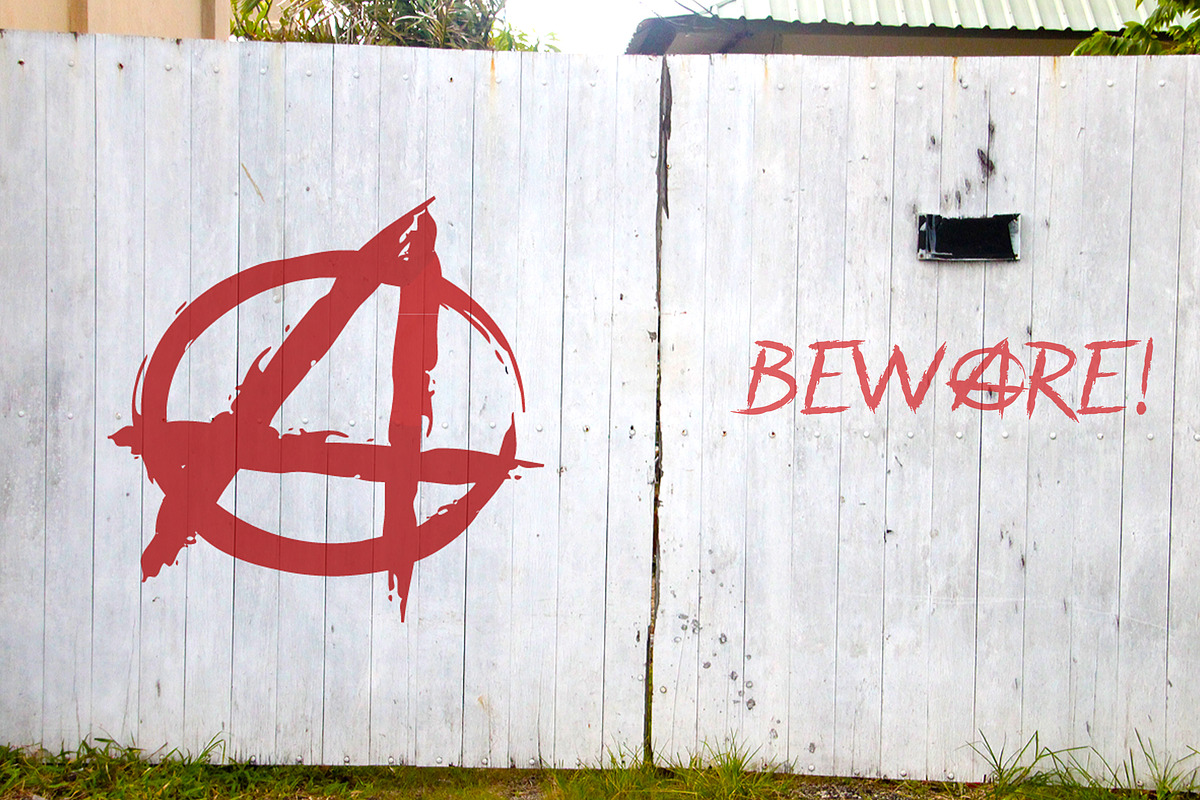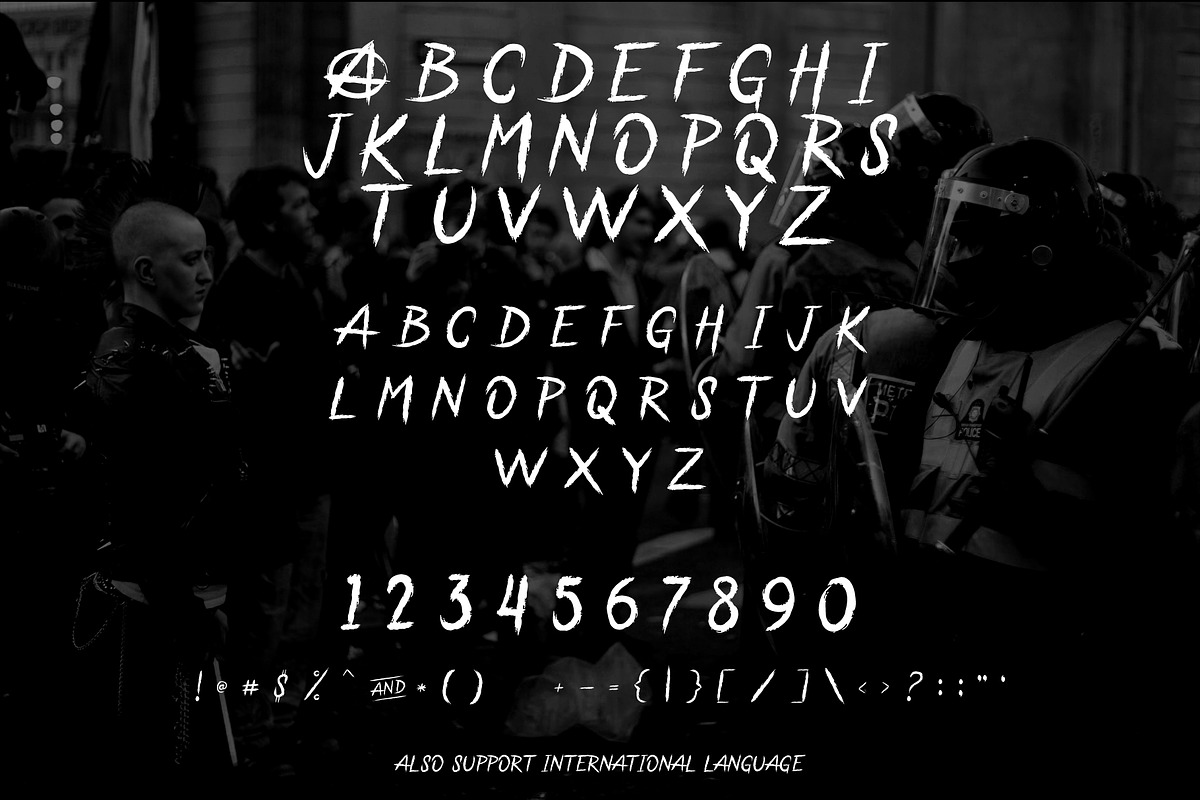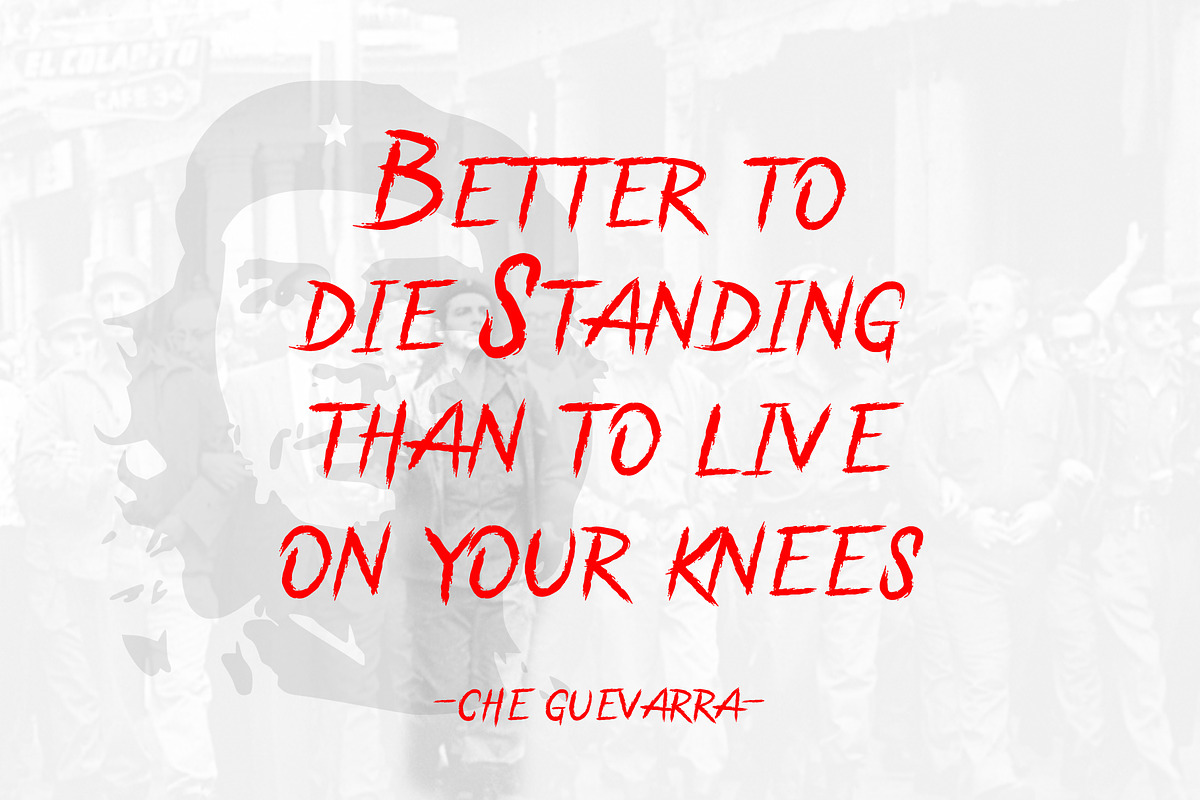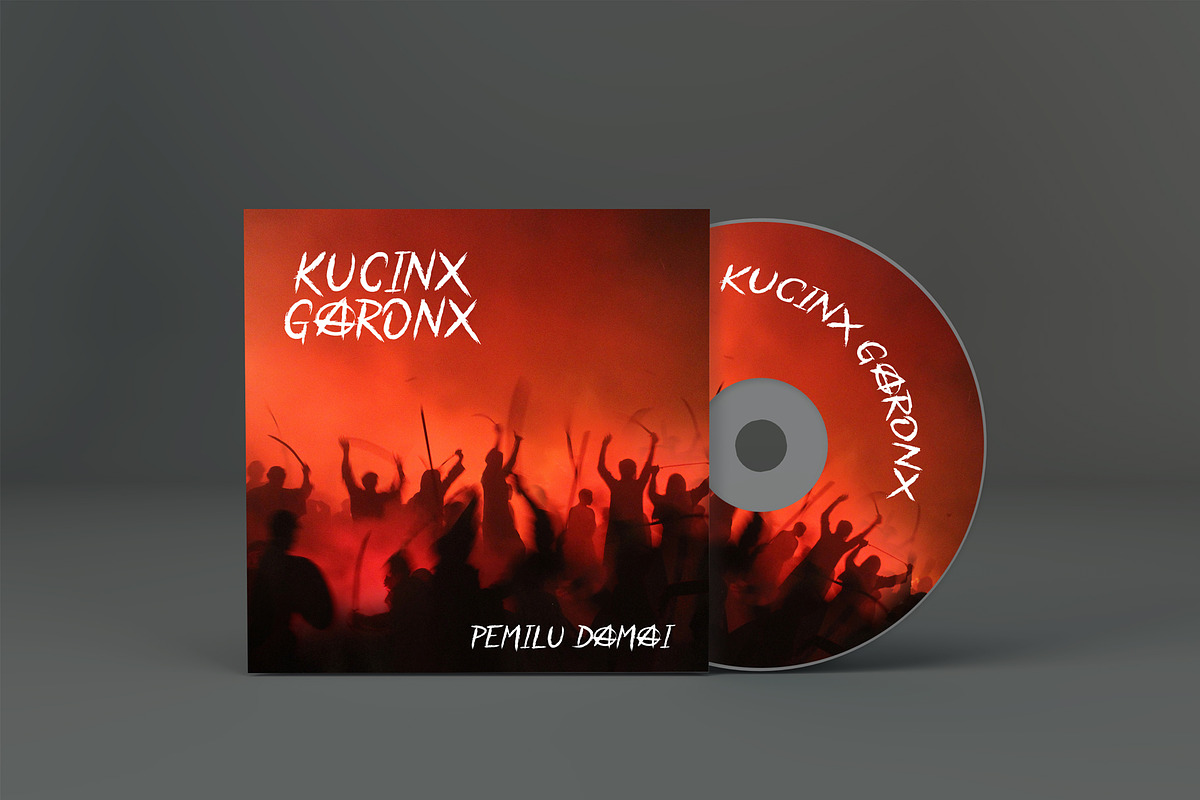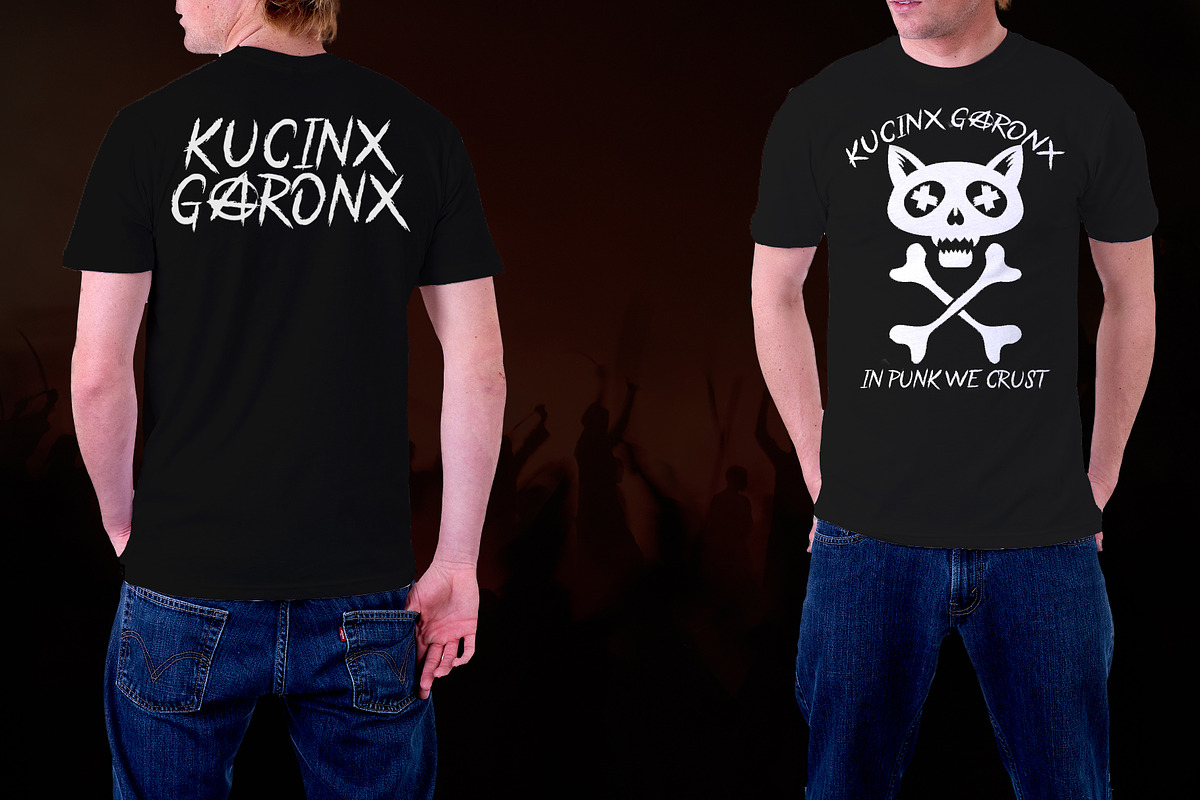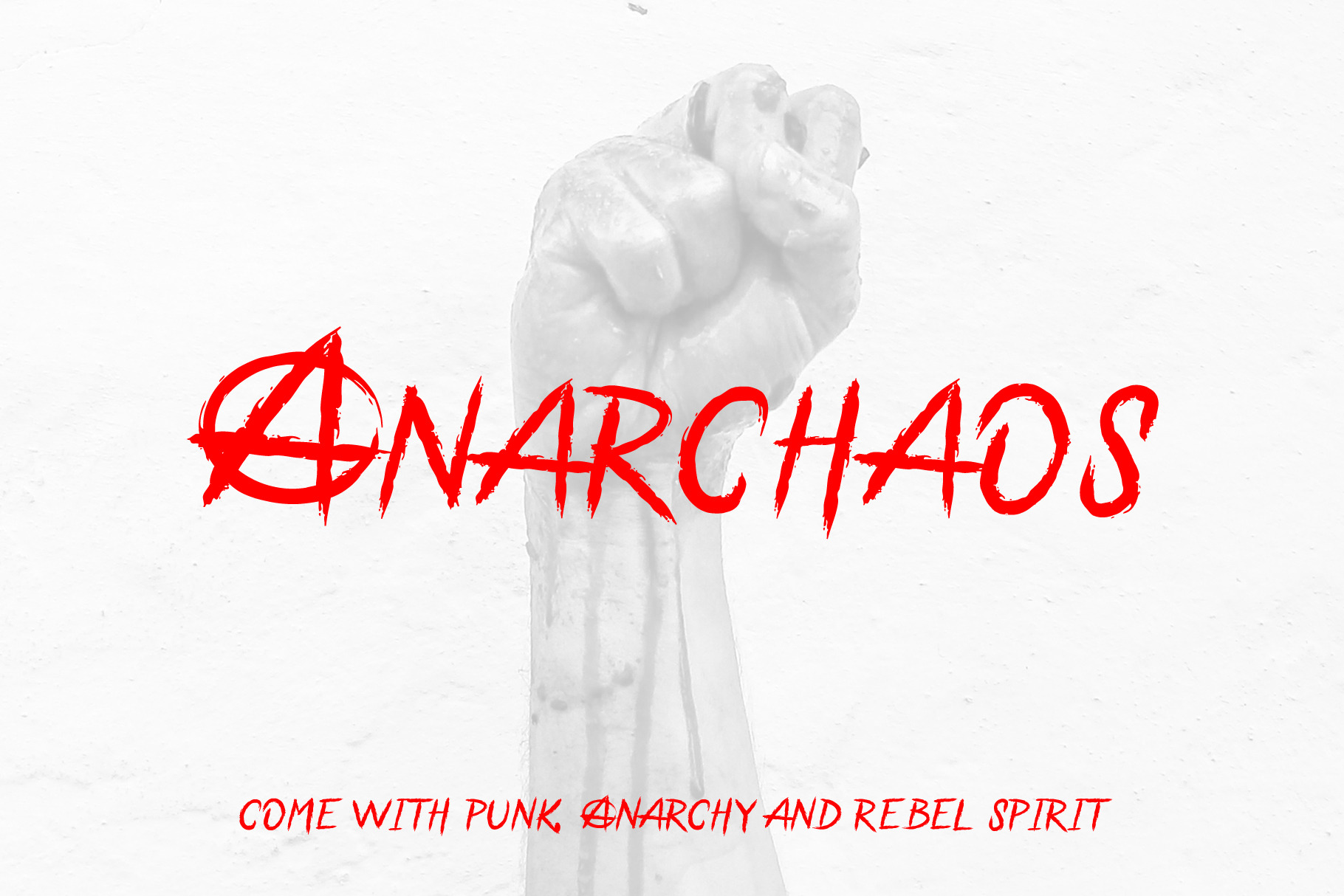
Anarchaos Extreme Sporty Font
Meet my new font Anarchaos
Anarchaos Hard Stroke Font - a new distorted and strong hard stroke style make this font looks extreme, strong and tought for any awesome projects that need Rebel, Punk, Riot and Extreme taste.
Anarchaos with a distinct appearance of Rebel / Riot. It works well in posters, CD Cover, T-shirt / merchandise design, magazine,the possibilities are endless!